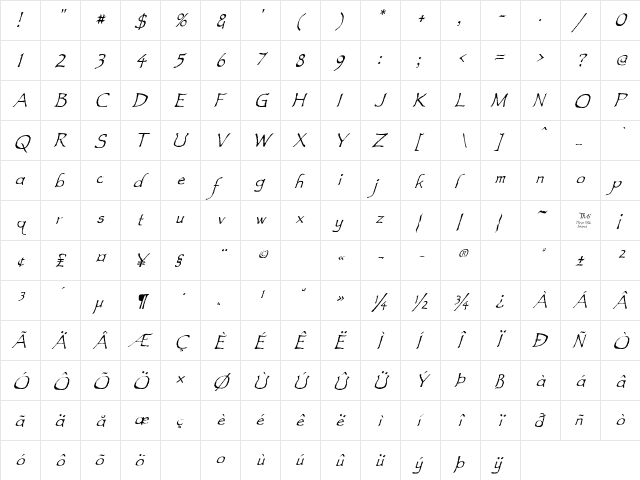
Feldicouth Italic Bend Regular Font Preview
Feldicouth Italic Bend Regular
Design Context for Feldicouth Italic Bend Typeface
Feldicouth Italic Bend is a composed and adaptable typeface that performs quietly and consistently across a wide range of design contexts. The dynamic lean of this cut emphasises speed and emphasis in any layout.